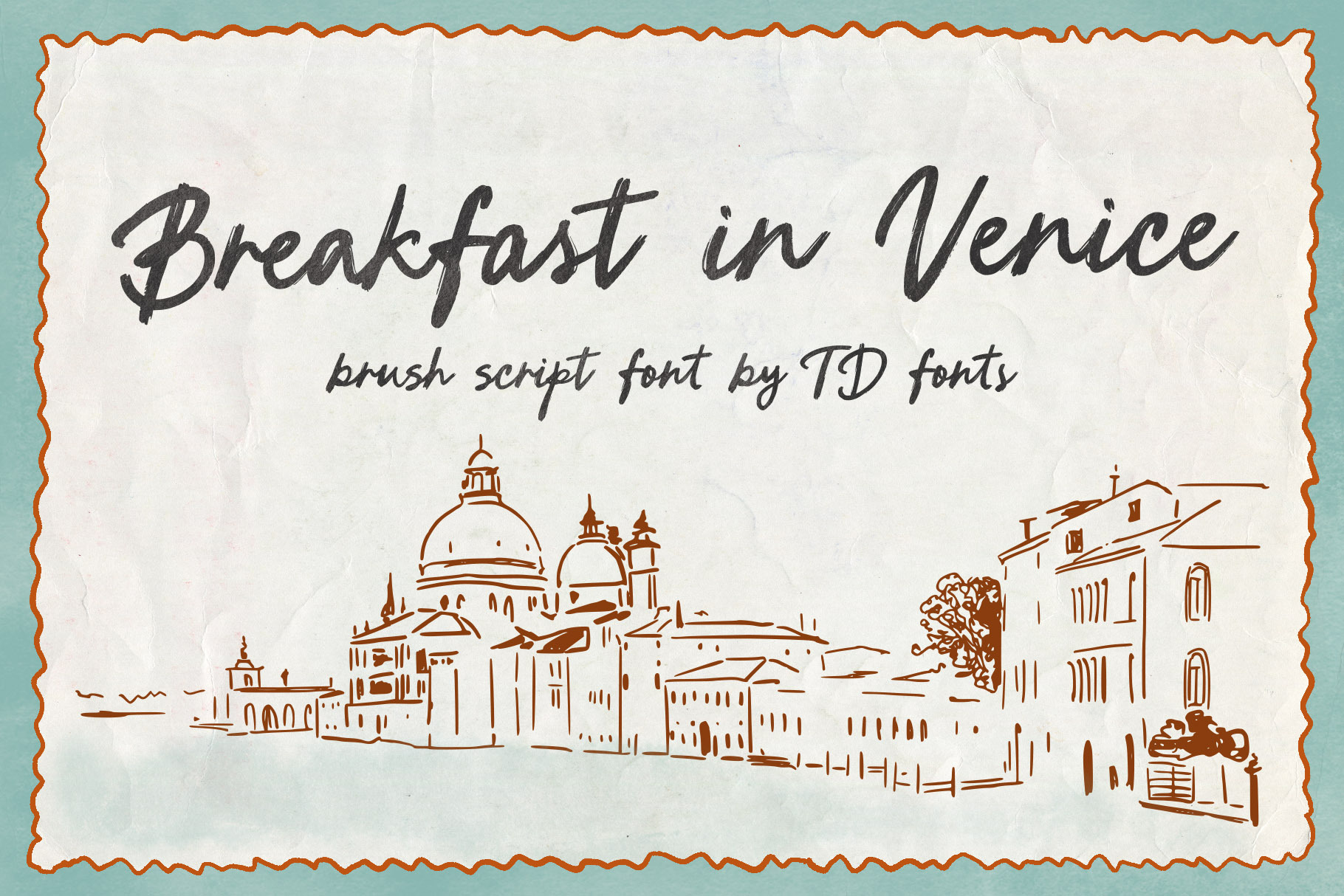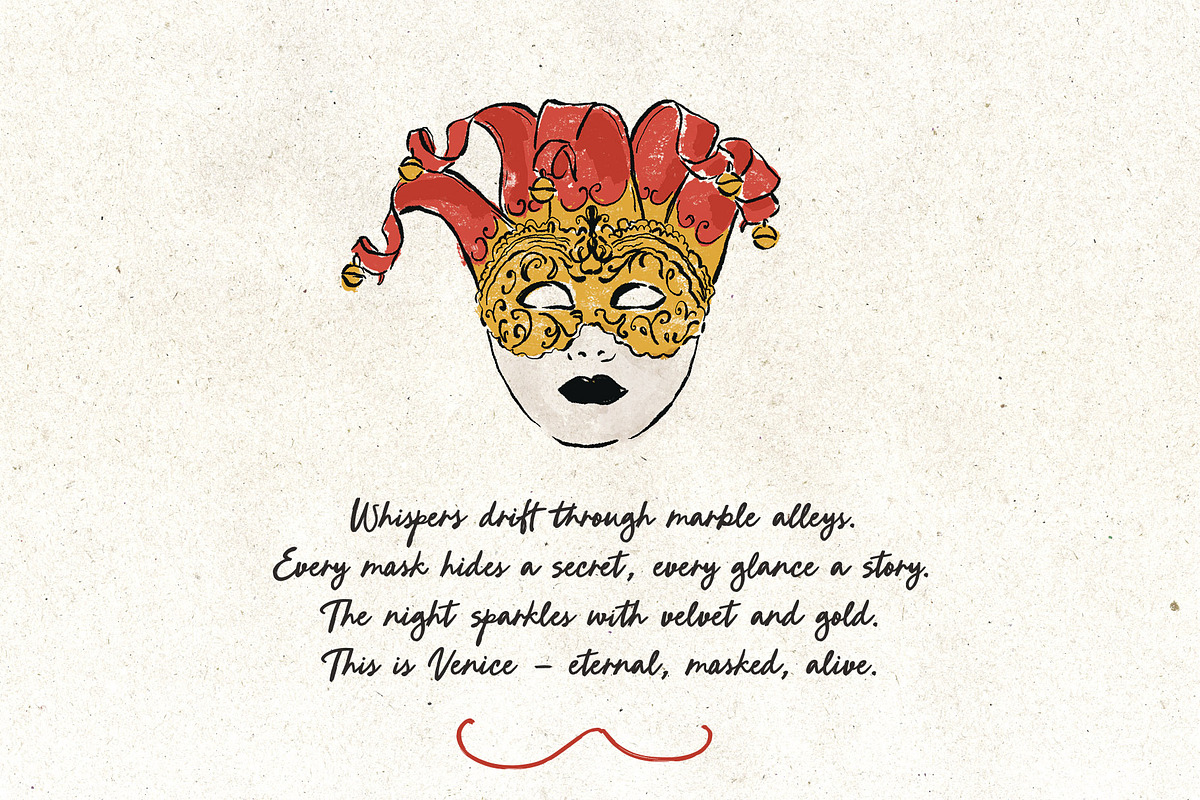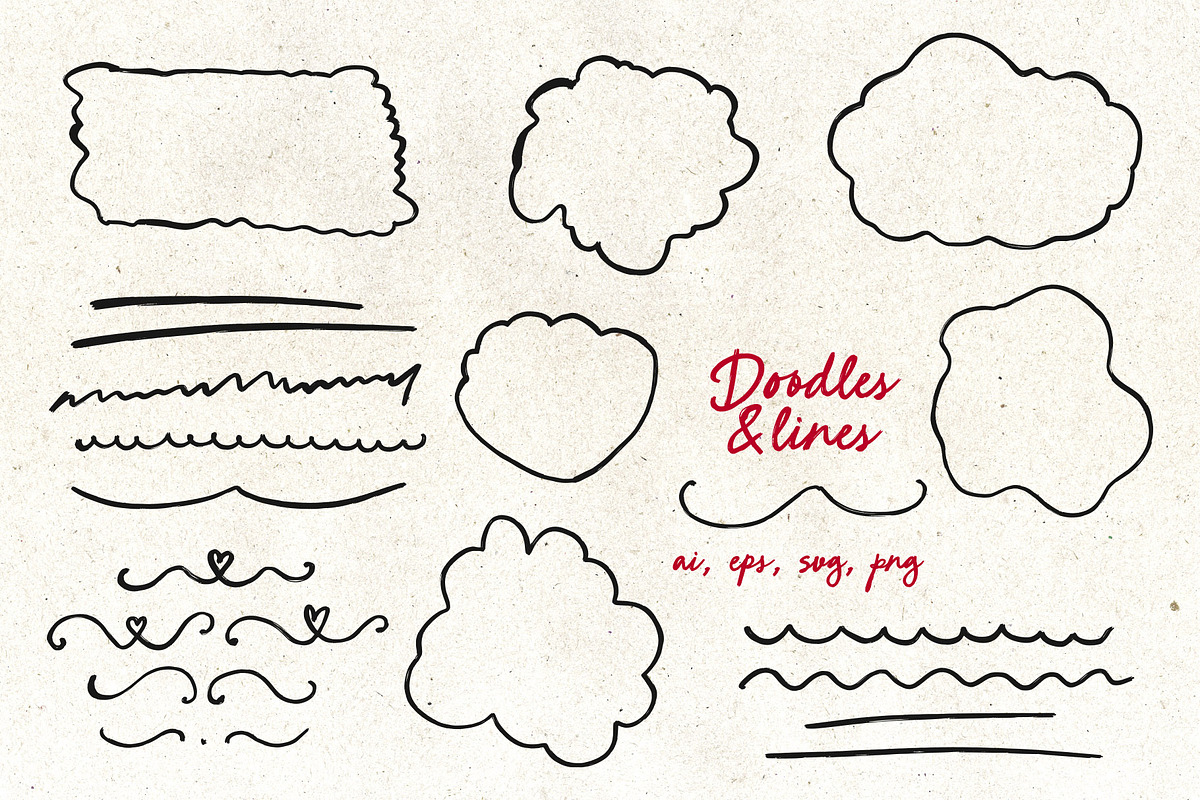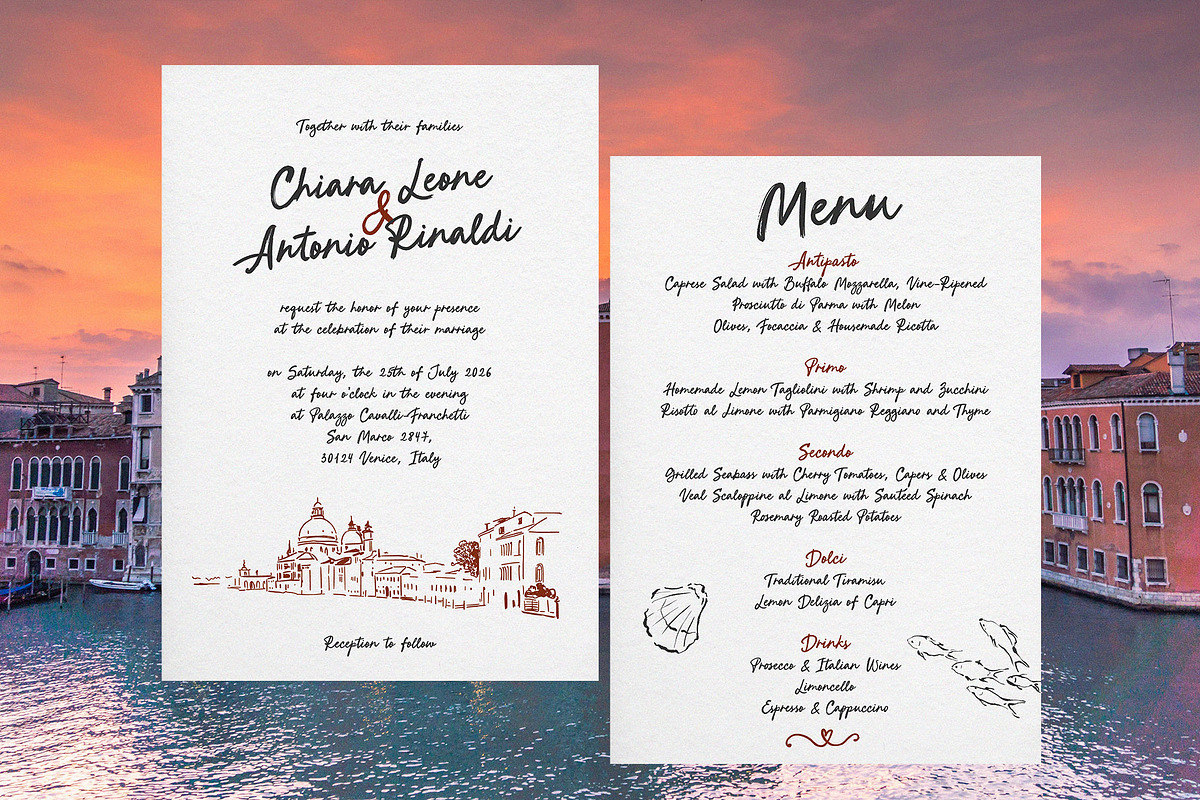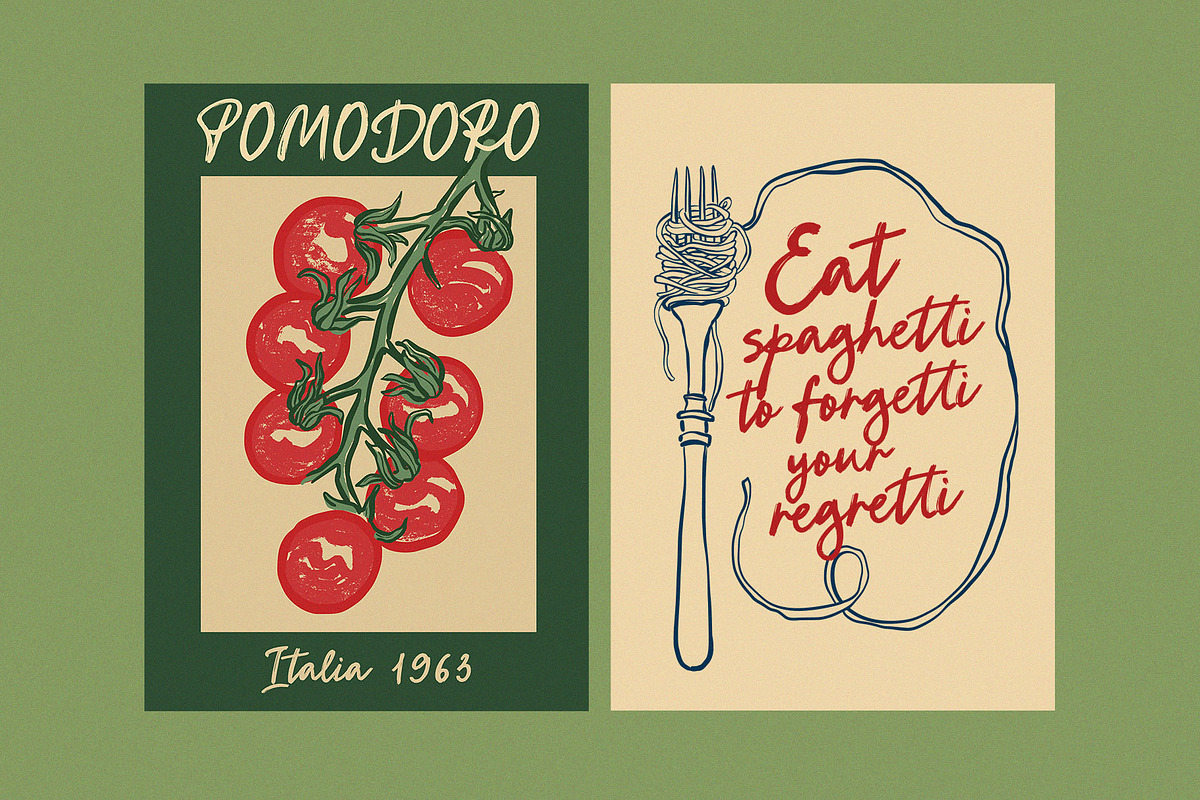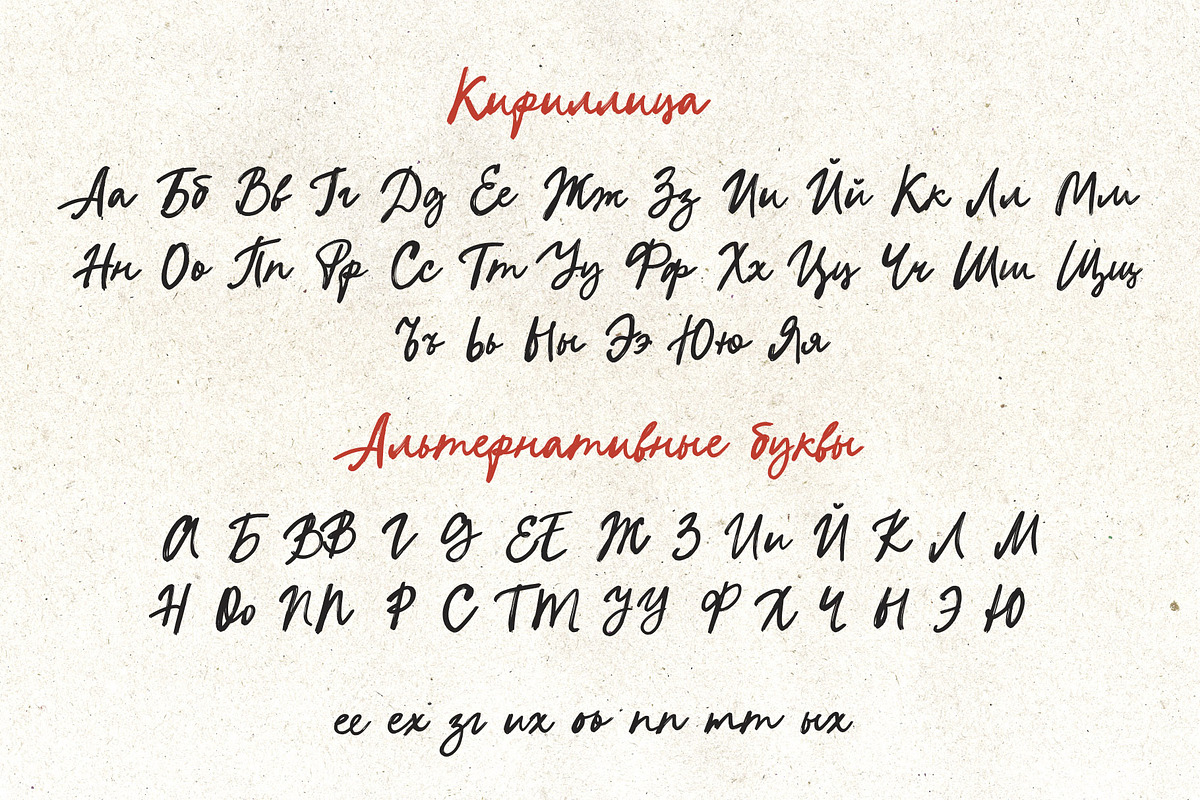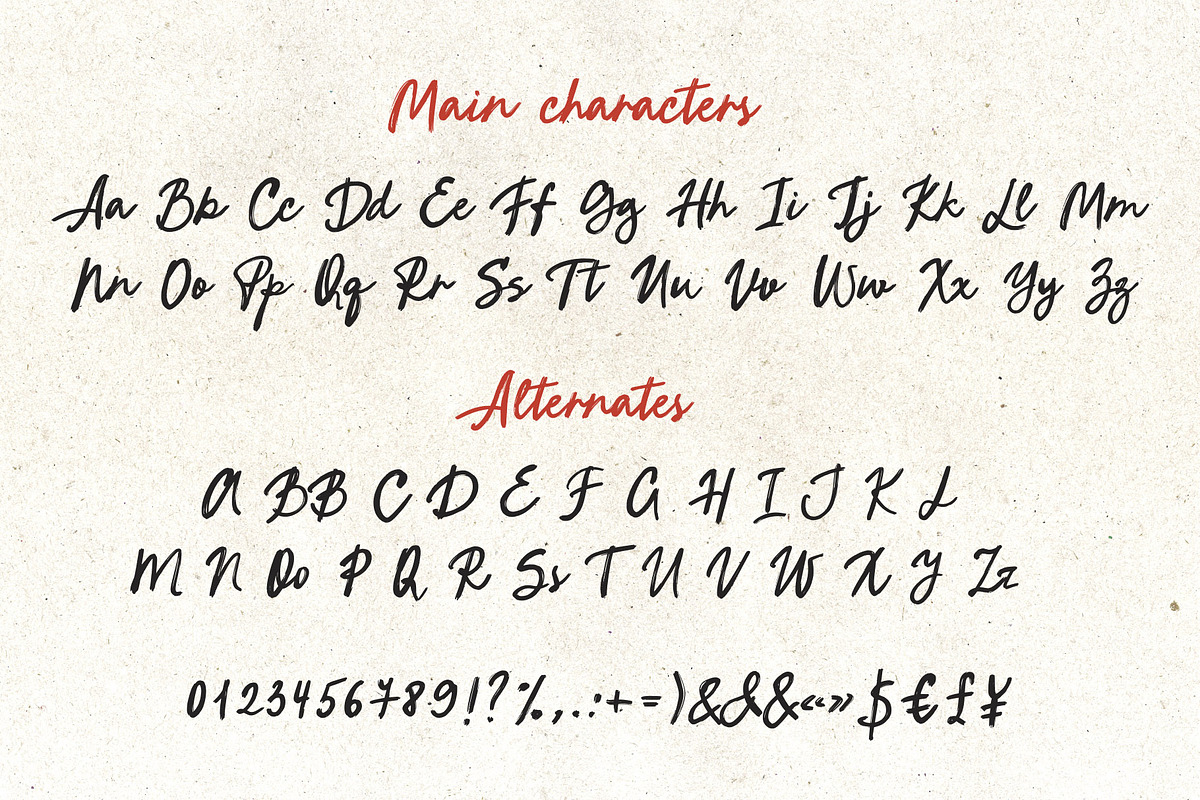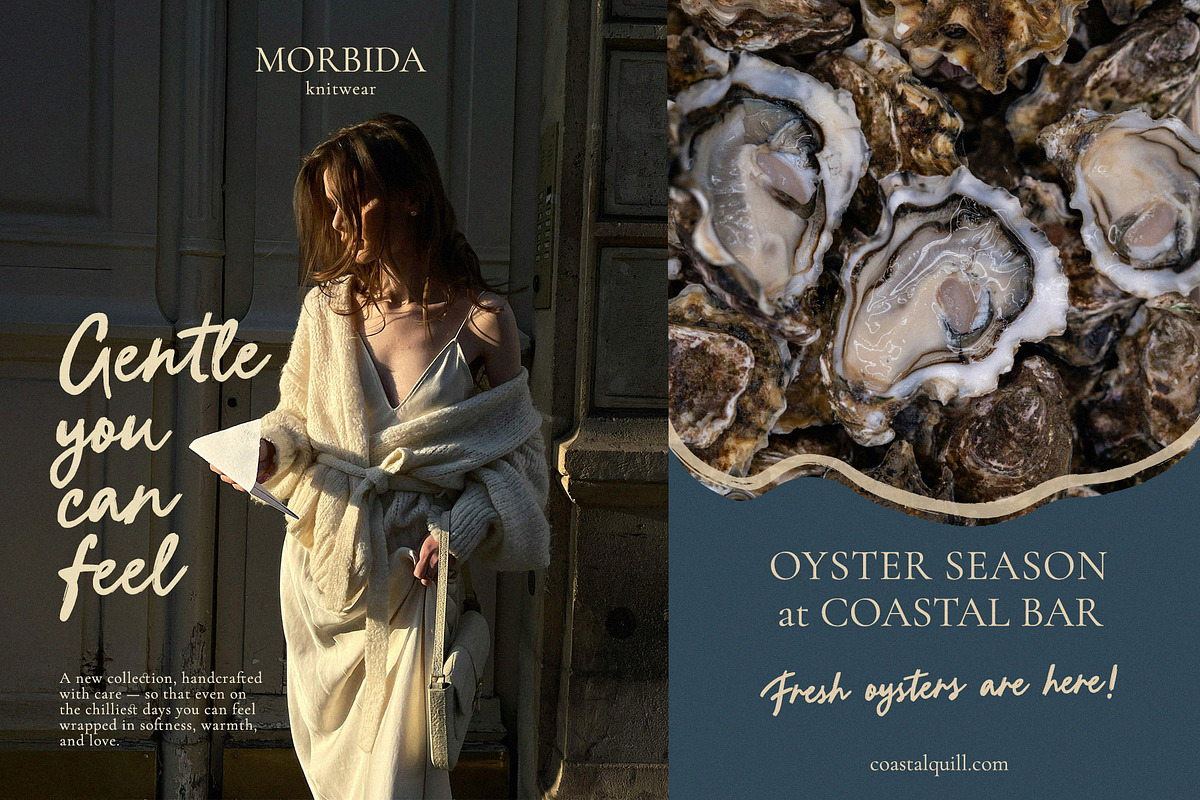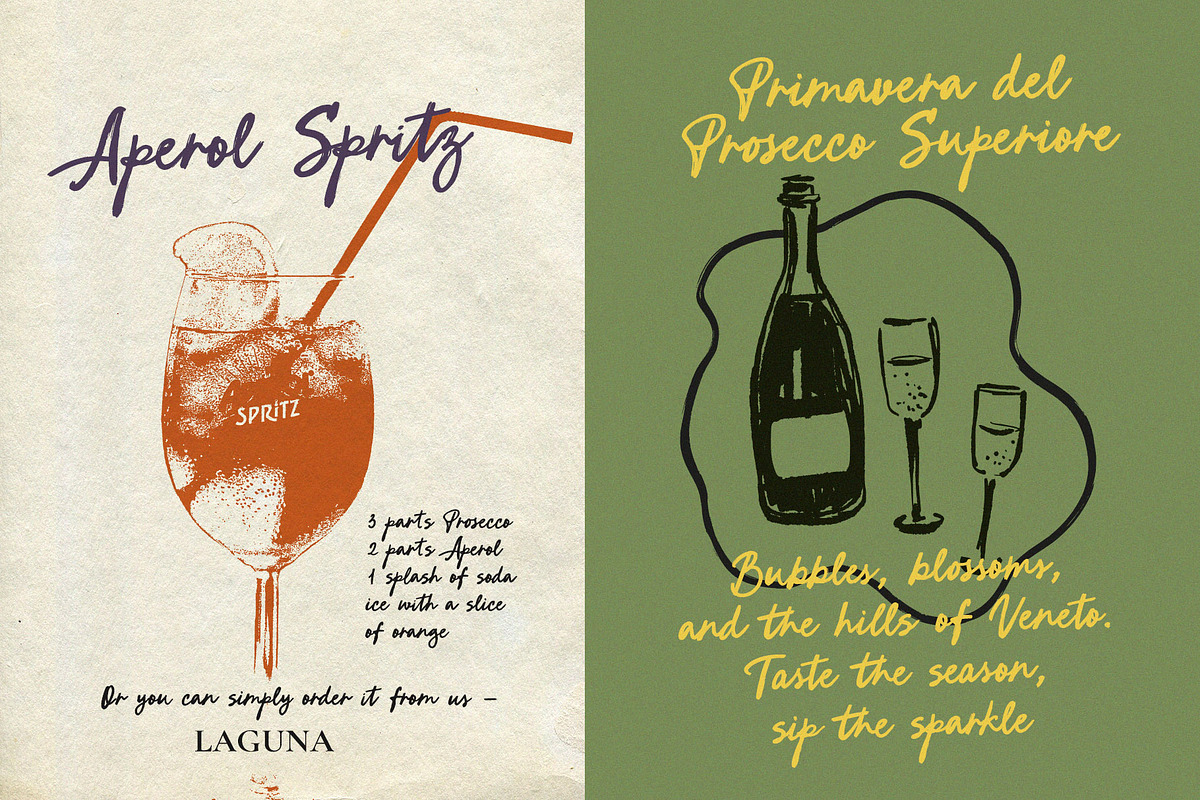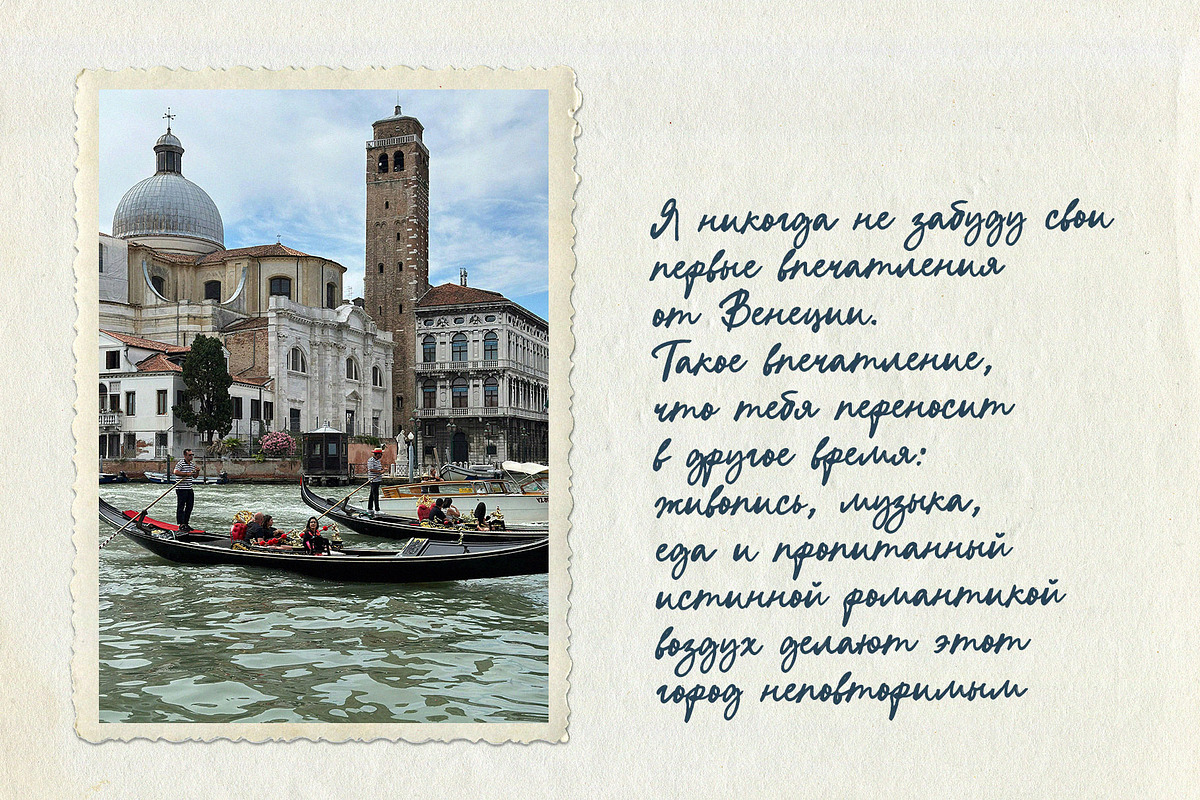
Breakfast in Venice is a bold handwritten brush script font with a warm, playful character — joyful, free-spirited, and full of the easy energy of a perfect morning somewhere beautiful.
Sketched by hand on paper and built into a contemporary brush script, this font carries the energy of real calligraphy without its formality. The strokes are bold and generous, with the kind of bristle texture that only comes from a brush moving with genuine enjoyment — rich on the downstrokes, fine and fleet on the upstrokes. There's a playful irregularity in the letterforms: no two letters feel identical, the rhythm shifts naturally, and the whole thing breathes the way handwriting does when the hand is relaxed and happy. A subtle retro charm runs through it all, but it reads completely current.
This is a font that thrives where design needs to feel made by a human, not produced by a machine. It carries a candle label and a wedding invitation with the same easy grace. It works on boutique packaging and a birthday card, a café menu and a social media quote. Wherever a project calls for warmth, character, and a touch of handmade joy — this font belongs there.
Stylistic alternates and ligatures for expressive, varied lettering
Candle, soap & lifestyle product packaging and labels
Wedding stationery, invitations & celebration design
Greeting cards, birthday & holiday designs
Branding for cafés, bakeries, restaurants & food businesses
Editorial headlines, quotes & social media content
Posters, prints & whimsical wall art
Websites & digital design with a warm, festive personality
Any project that calls for handmade charm and a playful, free-spirited vibe
Font features:
Bold brush script with rich bristle texture and high stroke contrast
Wide, generous letterforms with a moderate rightward slant and long expressive ascenders
Warm, playfully irregular hand-drawn character — imperfect in the most appealing way
Extensive stylistic alternates and ligatures for creative lettering variety
21 hand-drawn illustrations for decoration, branding and layout composition
The aesthetic:Breakfast in Venice feels like handwriting on a postcard sent from somewhere beautiful, a logotype on a boutique jar of preserves, a headline on a holiday menu. It's the right font when a design needs to feel warm and alive — not polished to perfection, but made with genuine feeling. Joyful without being loud. Light without being thin. The kind of type that makes people smile before they've even read the word.